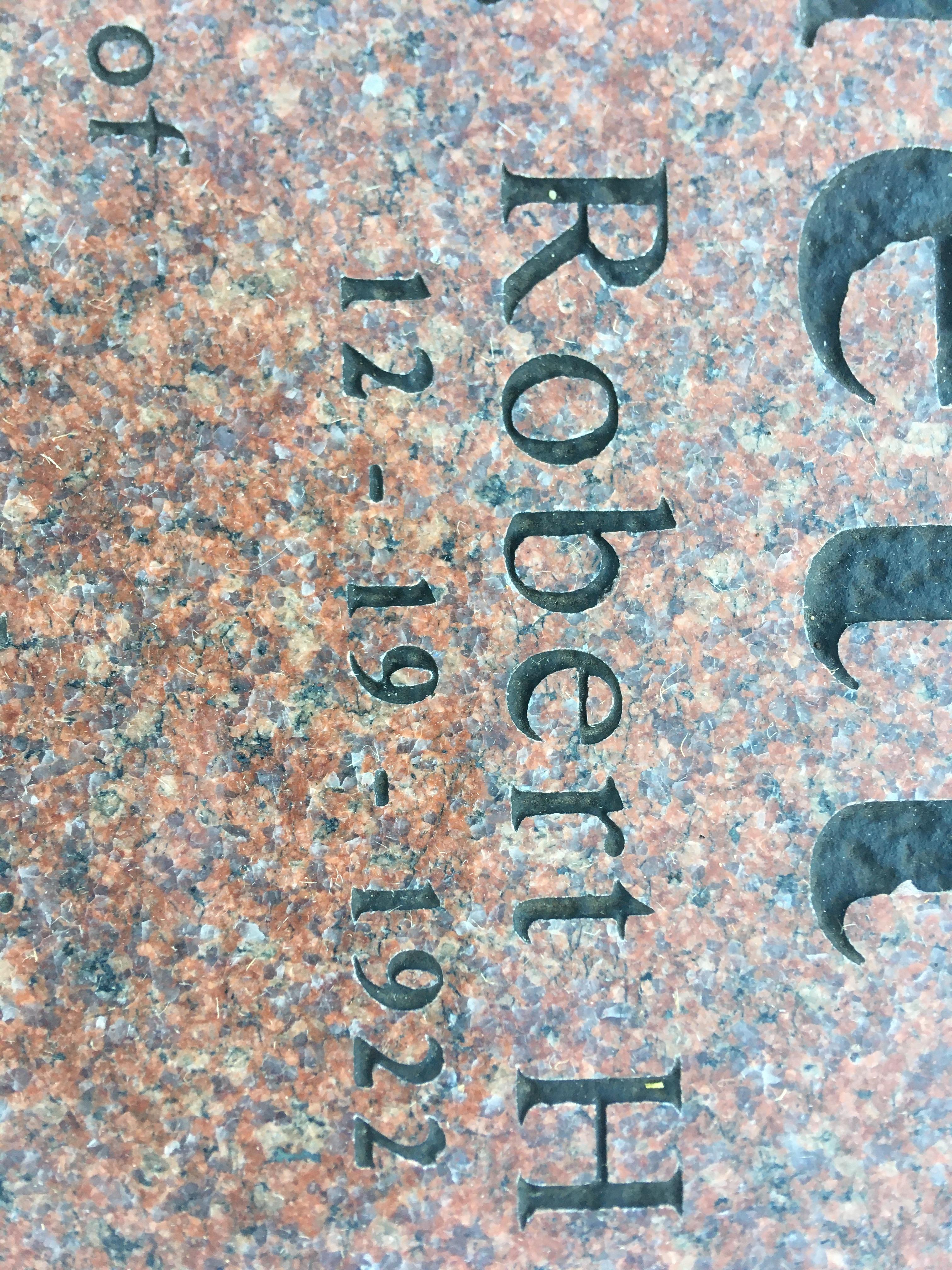
Looks like it’s close to Garamond or times new Roman. Any ideas? Tia.
The name appears to be a version of Times New Roman and the dates in Times New Roman Bold. However, there seem to be some slight variations pointing to the possibility that this may be a proprietary version created for a specific design software.